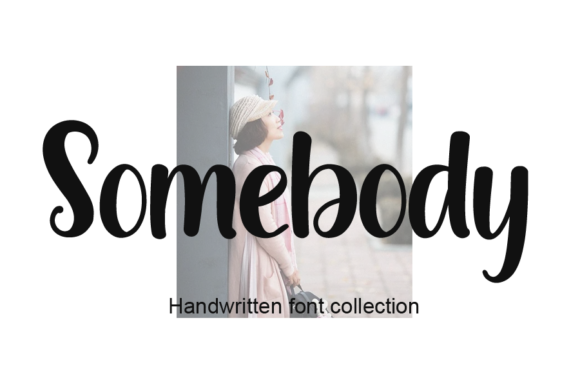
Somebody Font
About Somebody Font
“Somebody” is a magical script font meticulously crafted with a touch of elegance. Whether you’re in search of fonts for Instagram posts or calligraphy scripts for DIY projects, “Somebody” has the power to transform any creative idea into a true piece of art.
The magic of “Somebody” is evident in its script design, which exudes a sense of enchantment and sophistication. The carefully crafted characters contribute to an overall elegant and artistic quality, making it a perfect choice for various creative applications.
The versatility of “Somebody” allows it to shine across different platforms and projects. Whether you’re enhancing your social media presence or adding a touch of magic to DIY endeavors, this font adds a unique and artistic flair to your text.
As you incorporate “Somebody” into your creative projects, you’ll discover its ability to turn ordinary ideas into extraordinary works of art. The font becomes a valuable tool for expressing creativity with a touch of elegance and enchantment.
In summary, “Somebody” is more than just a font; it’s a magical script typeface that brings elegance and enchantment to your creative endeavors. Whether used for Instagram posts or DIY projects, let “Somebody” be the font that turns your creative ideas into true pieces of art, making each project a magical expression of your artistic vision.